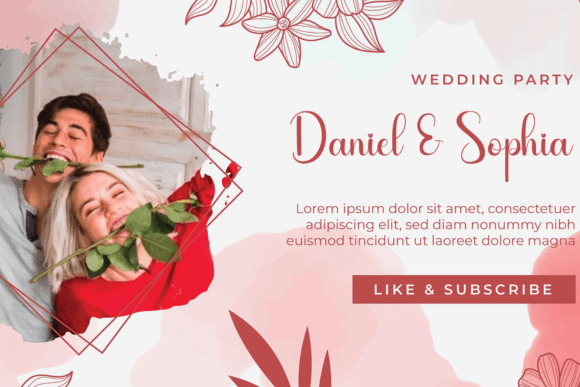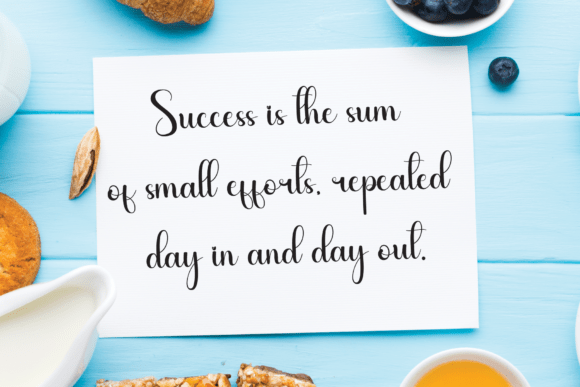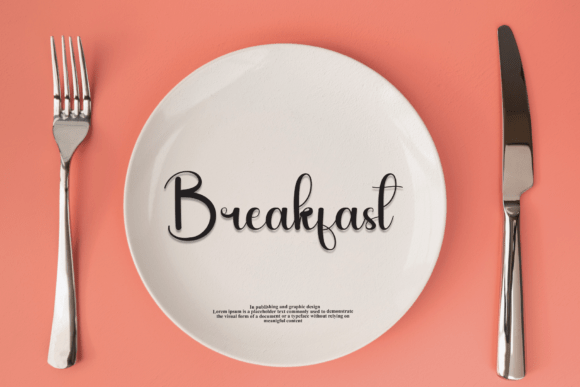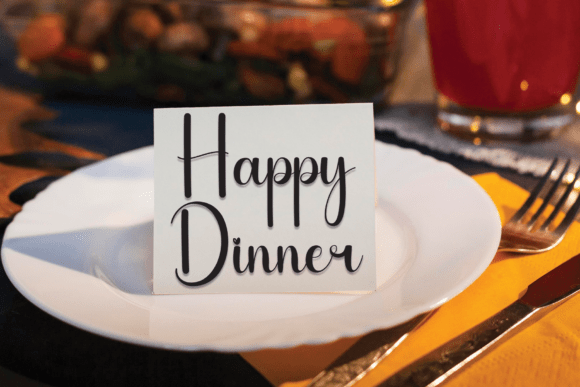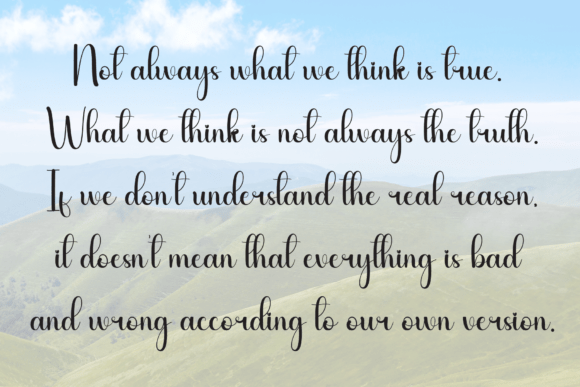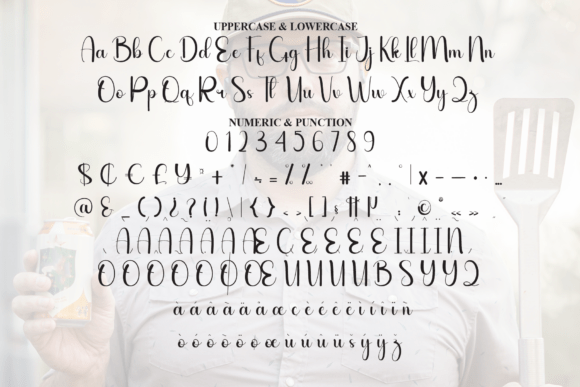
Daddy Font: Elevate Your Designs with Elegance and Sophistication
In the world of typography, fonts play a crucial role in conveying the tone and personality of a brand, product, or creative project. Among the numerous font styles available, handwritten script fonts have gained immense popularity for their unique, personal touch. One such font that has caught the attention of designers and crafters alike is the Daddy Font. In this article, we’ll explore the features, benefits, and uses of Daddy Font, and how it can elevate your designs to new heights.
What is Daddy Font?
Daddy Font is a stylish handwritten script font that exudes elegance and fluidity. Its smooth, flowing strokes create a natural and sophisticated feel, making it perfect for a wide range of applications, from branding and invitations to creative projects. With a graceful balance of charm and modernity, this typeface adds a personal, artistic touch to any design.
Key Features of Daddy Font
- Elegant and Fluid Strokes: Daddy Font boasts smooth, flowing strokes that give it a natural and sophisticated look.
- Handwritten Script Style: The font’s handwritten script style adds a personal touch to any design, making it perfect for creative projects.
- Balanced Charm and Modernity: Daddy Font strikes a perfect balance between charm and modernity, making it suitable for a wide range of applications.
- Highly Versatile: The font can be used for various design projects, including branding, invitations, packaging, and more.
Benefits of Using Daddy Font
Using Daddy Font in your designs can have numerous benefits. Here are a few:
- Adds a Personal Touch: The font’s handwritten script style adds a personal touch to any design, making it more relatable and engaging.
- Creates a Sophisticated Look: Daddy Font’s smooth, flowing strokes create a sophisticated look that can elevate your designs to new heights.
- Perfect for Branding: The font’s elegant and fluid strokes make it perfect for branding applications, such as logos, business cards, and letterheads.
- Great for Creative Projects: Daddy Font is also suitable for creative projects, such as invitations, packaging, and digital art.
Uses of Daddy Font
Daddy Font can be used in a variety of design projects, including:
- Branding: Use Daddy Font to create elegant and sophisticated logos, business cards, and letterheads.
- Invitations: The font is perfect for creating beautiful and elegant invitations for weddings, parties, and other events.
- Packaging: Use Daddy Font to add a personal touch to your product packaging and make it stand out.
- Digital Art: The font can also be used in digital art projects, such as illustrations, graphics, and typography.
Tips for Using Daddy Font
Here are a few tips for using Daddy Font in your designs:
- Use it Sparingly: Use Daddy Font sparingly to create a focal point in your design.
- Pair it with Other Fonts: Pair Daddy Font with other fonts to create a unique and interesting contrast.
In conclusion, Daddy Font is a stylish handwritten script font that can add elegance and sophistication to your designs. With its smooth, flowing strokes and balanced charm and modernity, this typeface is perfect for a wide range of applications, from branding and invitations to creative projects. By using Daddy Font, you can create designs that are not only visually appealing but also personal and engaging.